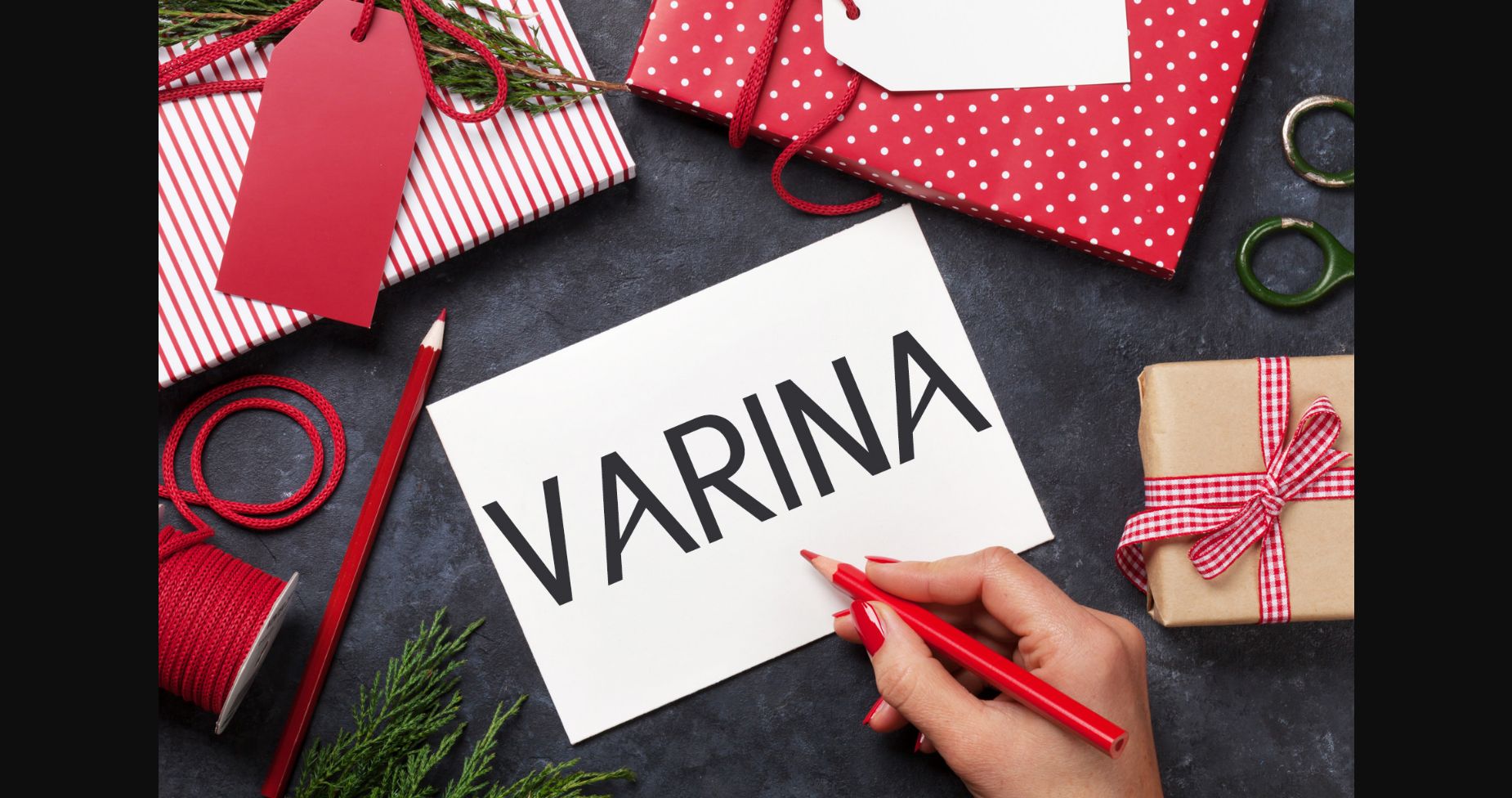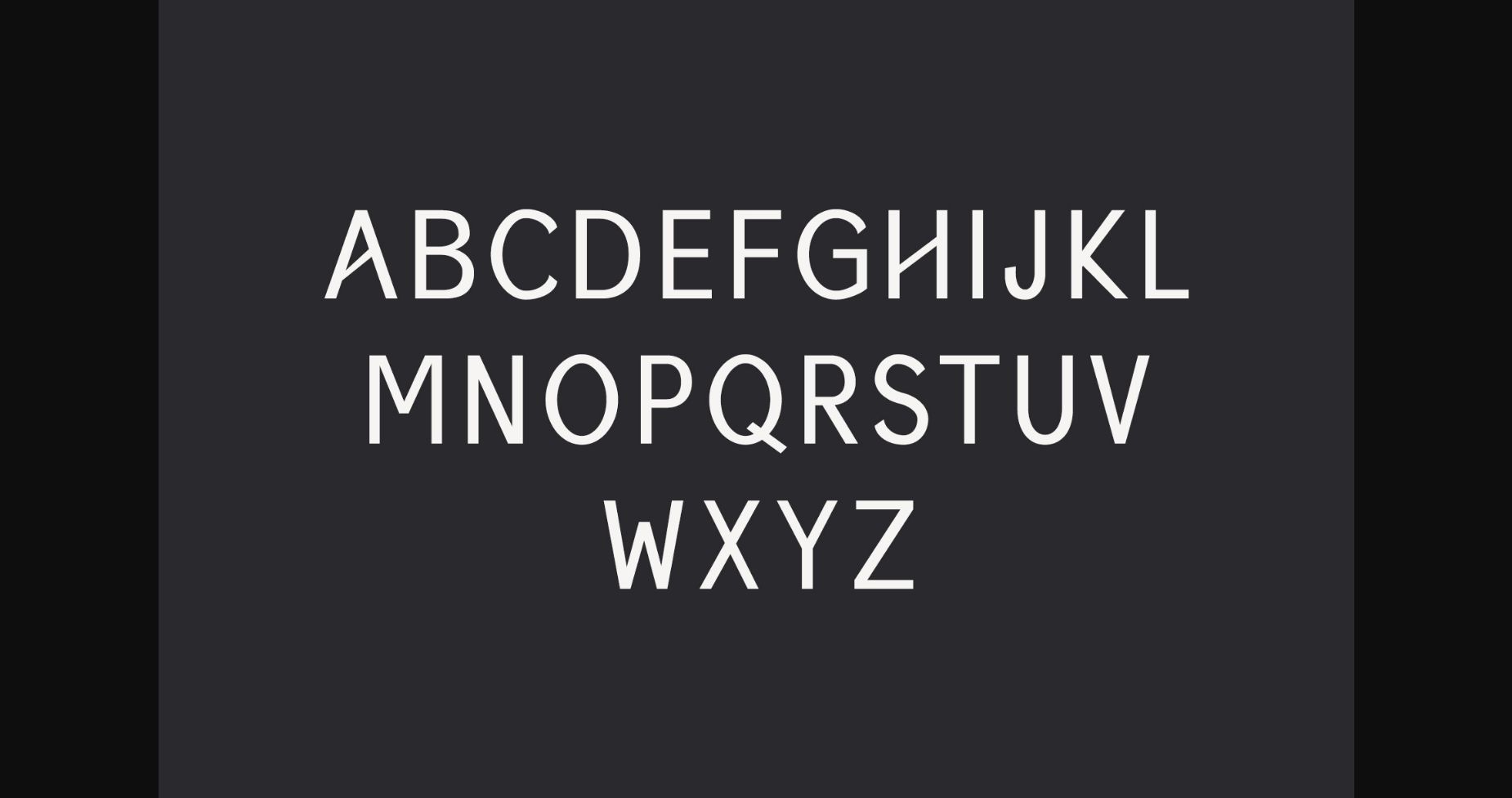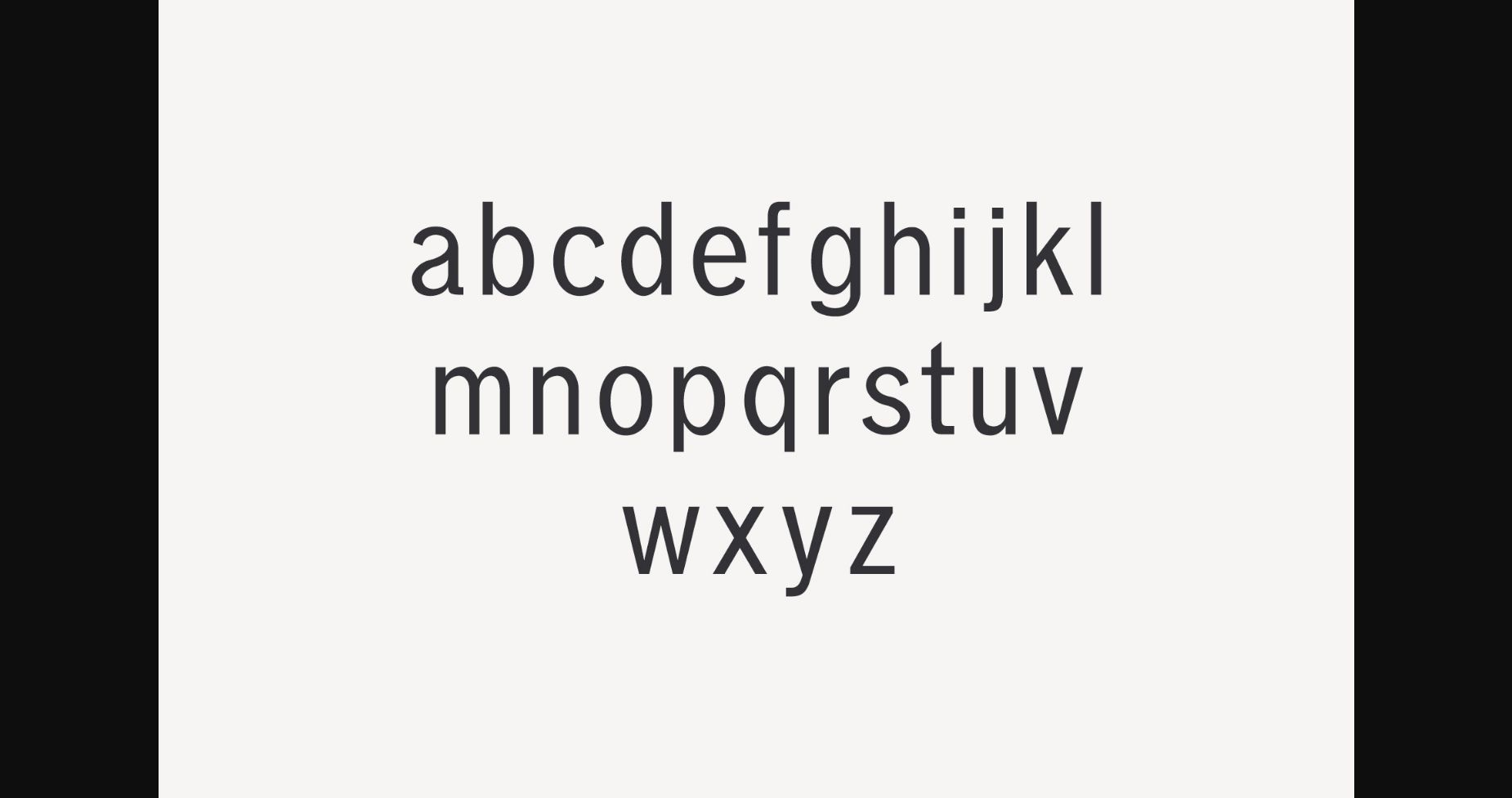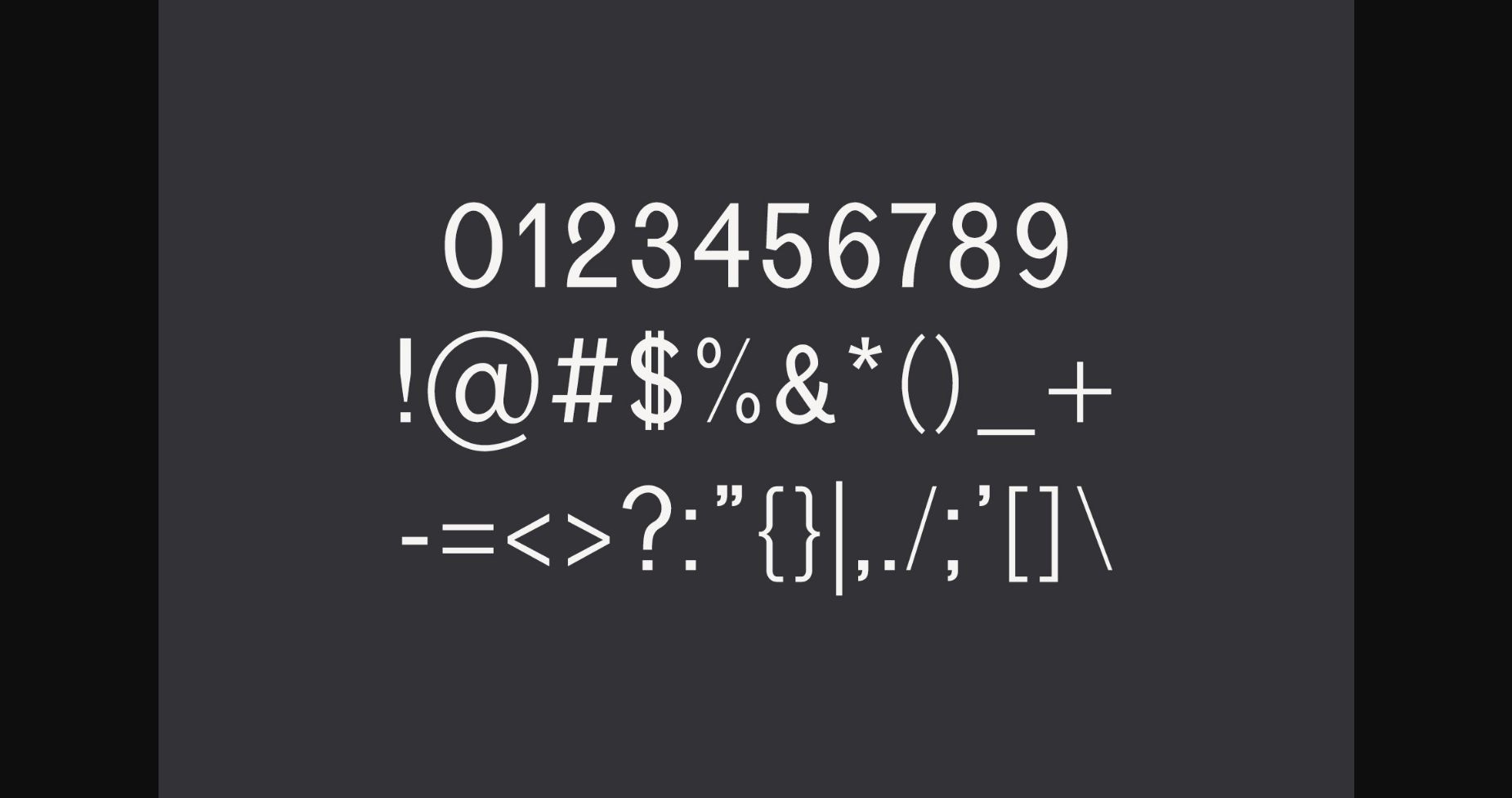
About Varina Family Font
Varina is a classic and timeless sans serif font family with a lovely modern twist on some characters. Its unique typography can elevate the look of any creative project!